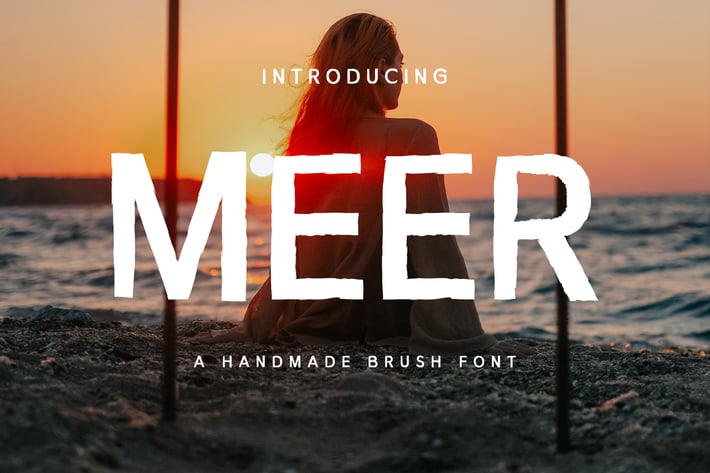
Meer Brush Font
Meer is a modern, youthful and unique handwritten brush texture font that will add class and personality into your upcoming projects! It contains uppercase, lowercase, number, punctuation and symbols. Meer font will be perfect for packaging, presentations, logo, headlines, lettering, posters, branding, quotes, titles, magazines headings, web layouts, advertising, invitations, packaging design, books, and nearly any creative design.
Meer Font Features:
- Uppercase Letters
- Lowercase Letters
- Support Multilingual ( Latin Supplement + Latin Extended A)